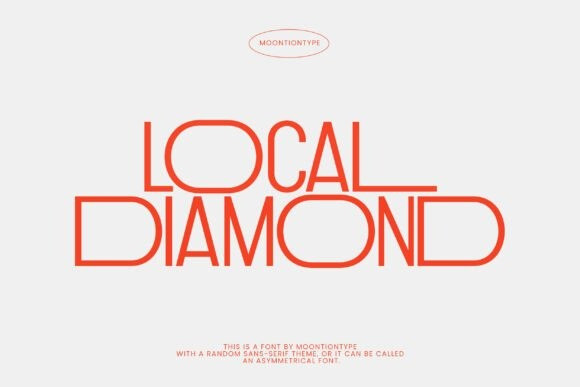
Local Diamond Font
Designer: Moontiontype
Local Diamond Font is a modern asymmetrical sans-serif font designed by Moontiontype.
This Local Diamond typeface breaks traditional typographic rules with its unique geometric proportions and sharp, modern lines. The Local Diamond font is perfect for avant-garde fashion labels, tech startups, and minimalist architectural branding. Because of its wide, futuristic stance, the Local Diamond typeface creates a high-end, editorial look that needs very little decoration—let the unique letterforms do the talking.